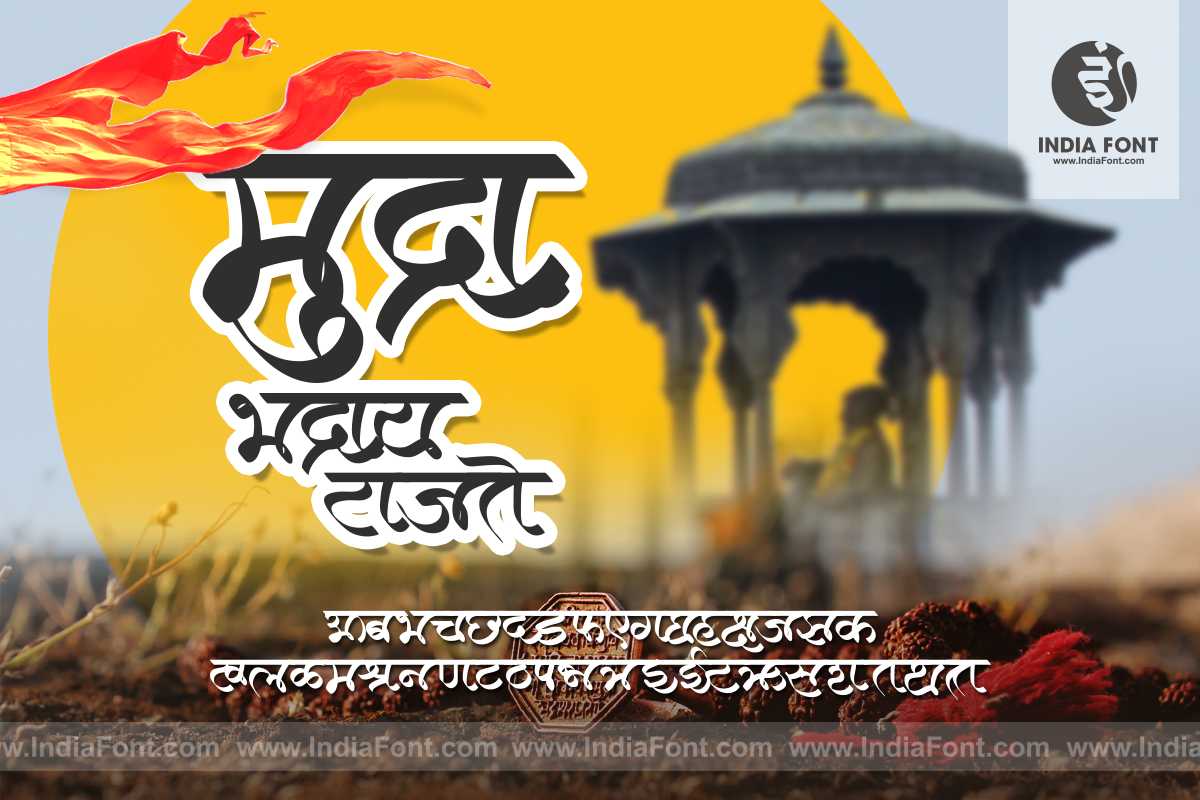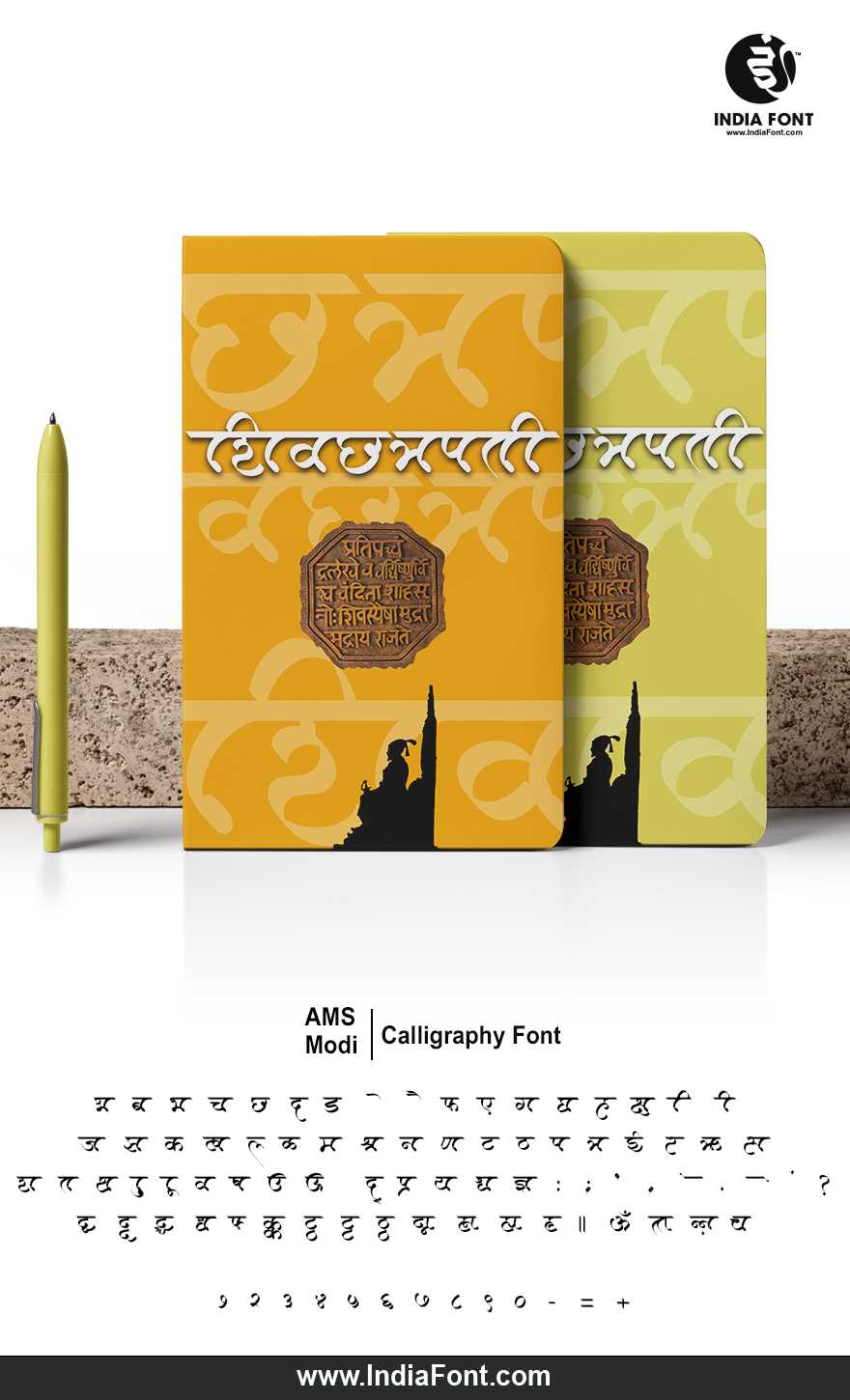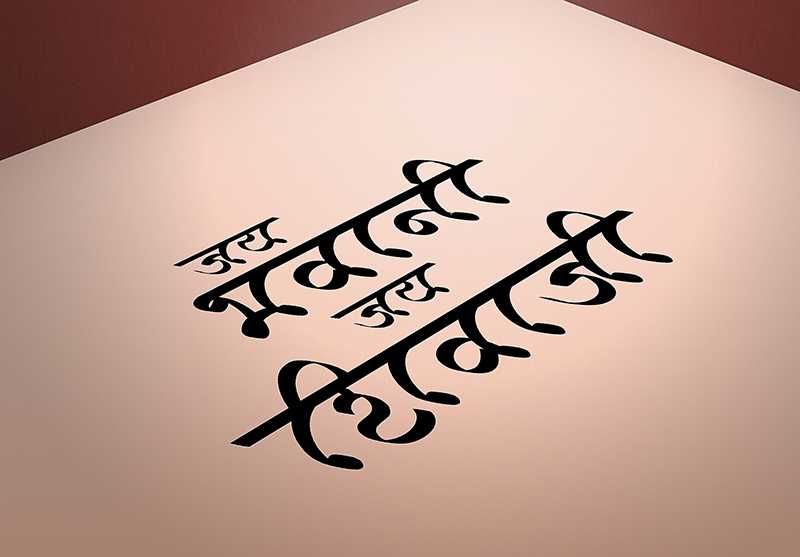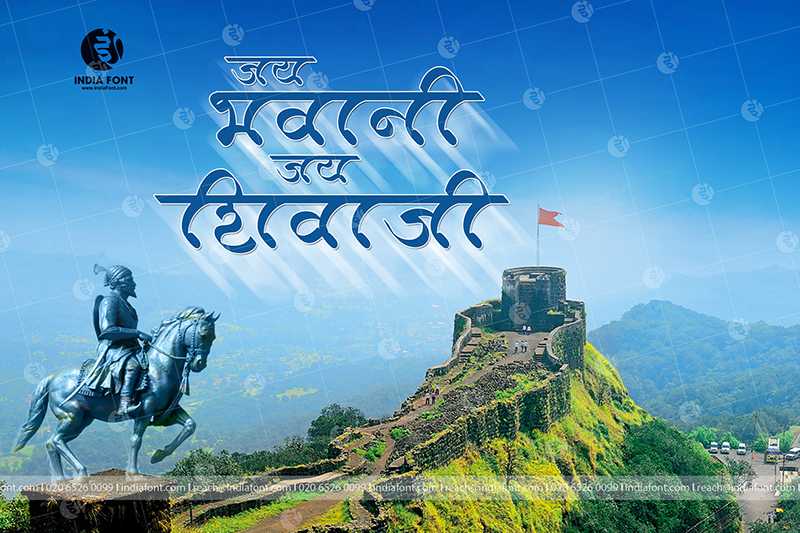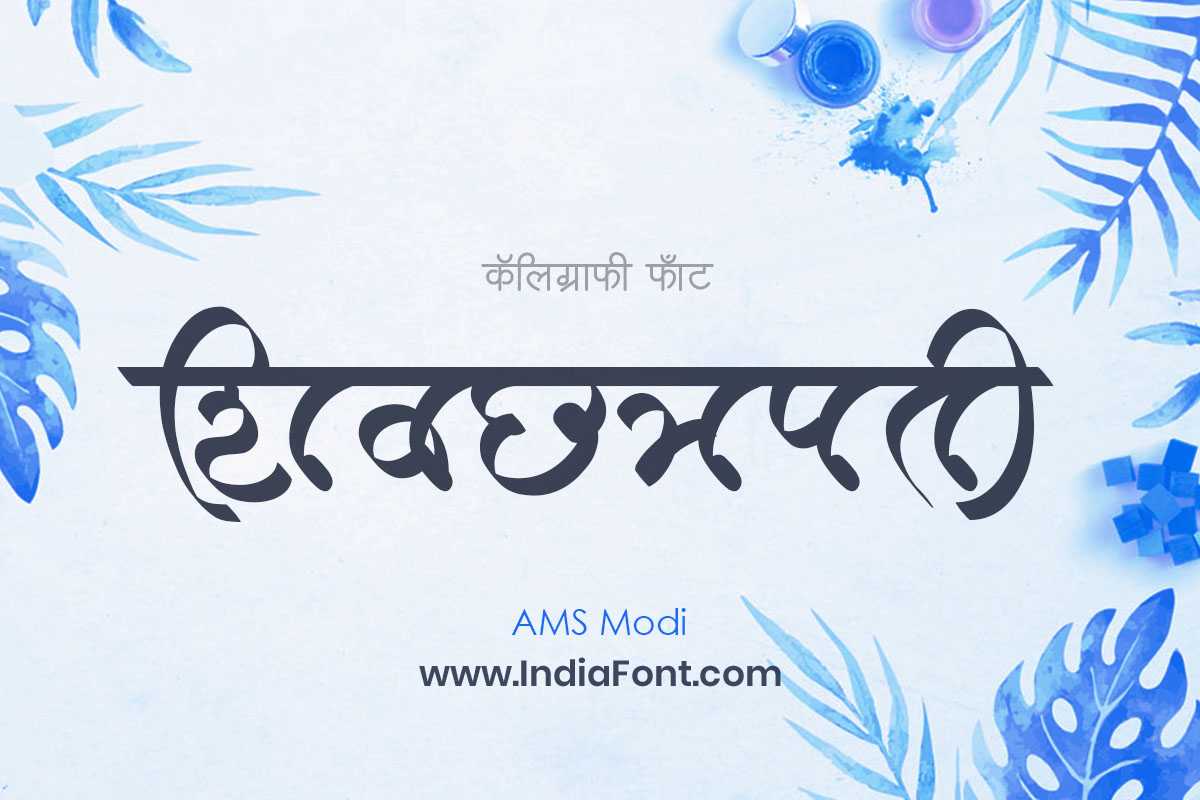
AMS Modi
Make a bold statement with AMS Modi, a calligraphy font that embodies confidence and impact. This font is ideal for designers seeking stylish Hindi fonts, calligraphy fonts that command attention, or fonts that offer a unique font style download.
AMS Modi Design Inspiration
AMS Modi font design inspiration and usage example
AMS Modi typography showcase and design sample
AMS Modi font application and style demonstration
AMS Modi calligraphy design and typography example
AMS Modi bold confident font styling showcase
About AMS Modi Font
Make a bold statement with AMS Modi, a calligraphy font that embodies confidence and impact. This font is ideal for designers seeking stylish Hindi fonts, calligraphy fonts that command attention, or fonts that offer a unique font style download. This calligraphy font combines elegance with functionality, making it perfect for various design applications.
AMS Modi is a professionally crafted calligraphy typeface that brings clarity and style to your projects. Designed with attention to detail, it supports hindi and marathi characters flawlessly.
Whether you're working on logos, posters, signage-banners, or other creative projects, AMS Modi delivers consistent performance across both digital and print media. This carefully designed typeface ensures readability and visual appeal in all your design work.
Why Choose AMS Modi?
AMS Modi excels in various design scenarios. Here are the most suitable applications:
About AMS Modi Typography Style
AMS Modi is a professionally crafted calligraphy font that exemplifies modern Hindi typography design. This free font is perfect for designers seeking professional branding and logo design projects.
Available in 1 weight and supporting hindi, marathi scripts, AMS Modi offers exceptional versatility for both digital and print media. Whether you're working on logos, posters, signage-banners, this carefully designed typeface ensures consistent quality and professional results across all your typography projects.